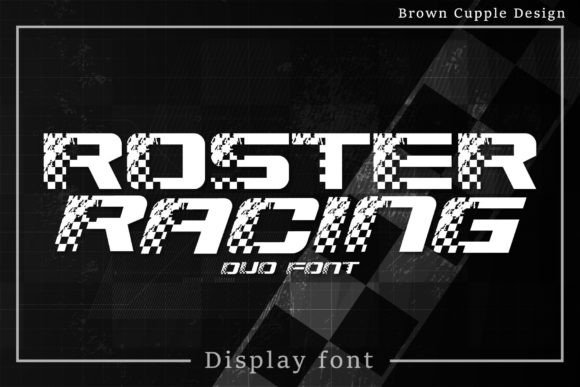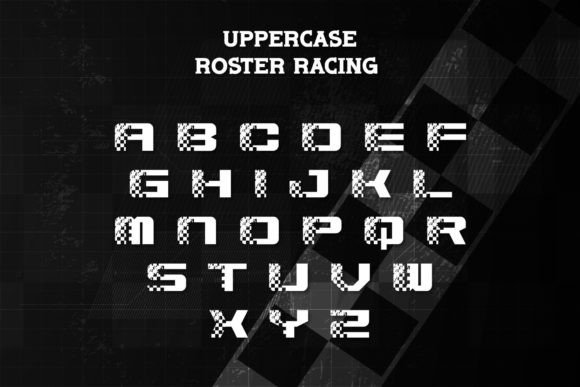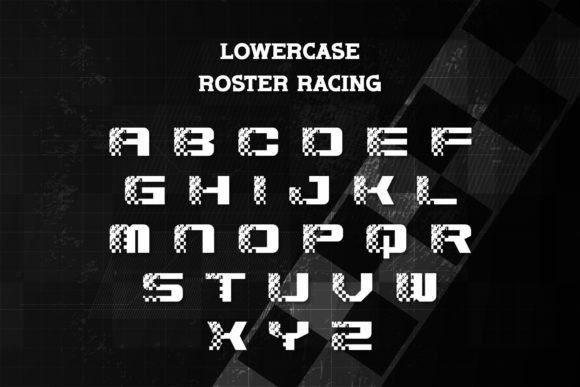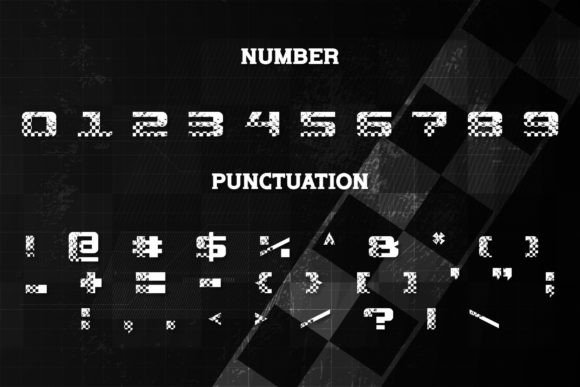
Roster Racing Font
About the Roster Racing Font
Make a bold statement with Roster Racing Font, a powerful and memorable font. Roster Racing is a cool race-styled decorative font. You can use it for various projects such as blog posts, logos, branding, ads, invitations, greeting cards, planners, photo albums, decorations, and more. Add it to any of your designs, and enjoy the results!
Roster Racing’s bold, energetic style is ideally suited for headlines, logos, and short, impactful text within posters or advertisements. Its playful nature makes it perfect for branding projects targeting a youthful or active audience, particularly in the sports, entertainment, or gaming industries. Avoid using it for body text or lengthy passages; its decorative qualities hinder readability in extended use.
Pairing Roster Racing with a clean sans-serif font like Open Sans for body copy provides a strong contrast and balanced visual hierarchy. For a more refined look, consider pairing it with a classic serif like Garamond or a slightly more modern serif like Lato for a sophisticated yet dynamic feel.
The font’s core personality is undeniably bold and playful, lending itself to projects requiring a high-energy, attention-grabbing aesthetic. It’s less suitable for applications demanding elegance or subtlety.